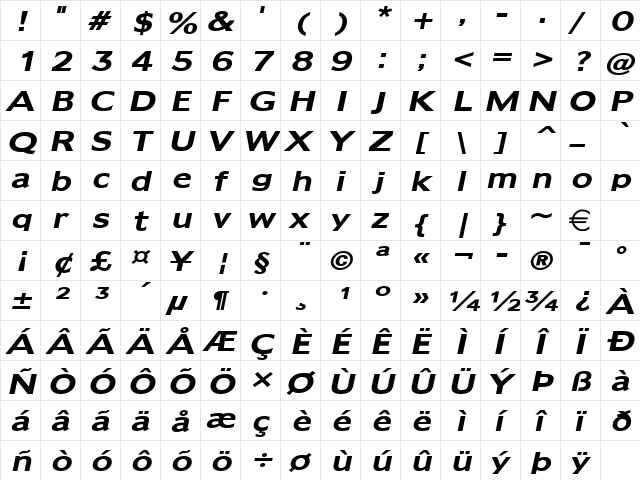
AdamsWide BoldItalic
Design Context for AdamsWide Typeface
AdamsWide is a composed and adaptable typeface that performs quietly and consistently across a wide range of design contexts. The dynamic lean of this cut emphasises speed and emphasis in any layout. Its bold stroke weight gives it real presence on the page.
Pro Tip: Try AdamsWide for annotation and caption copy alongside an upright companion — the contrast in angle creates a dynamic but ordered typographic system.